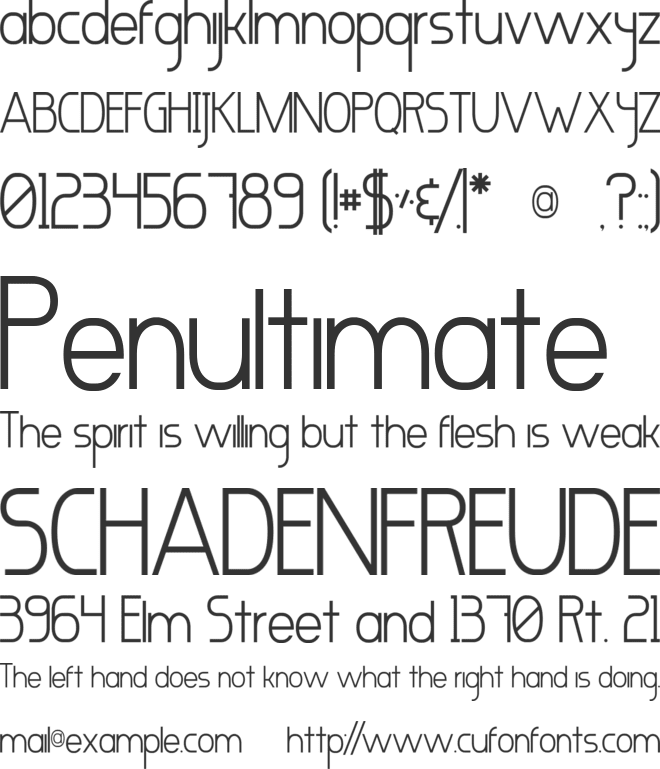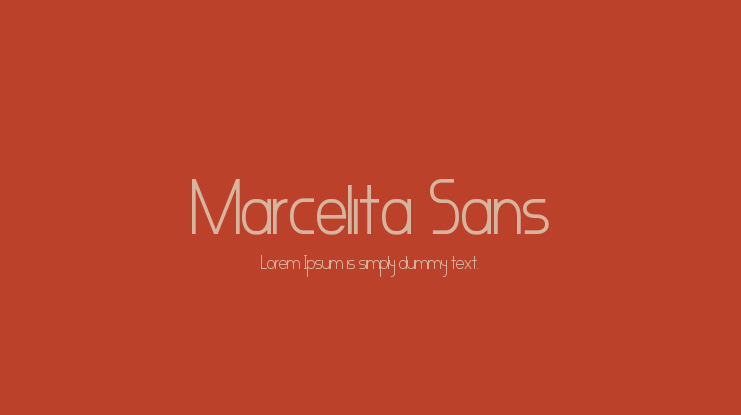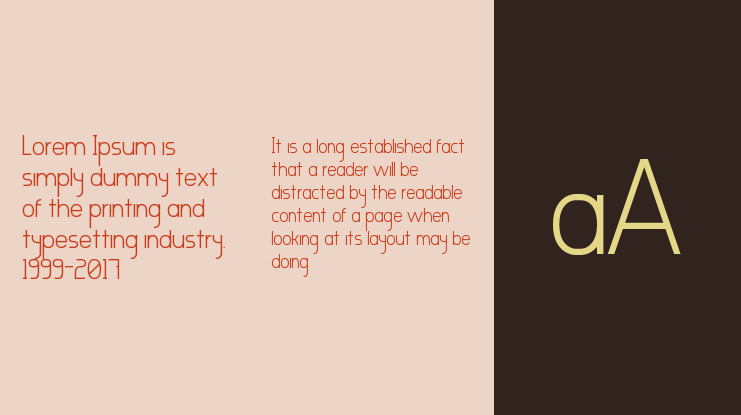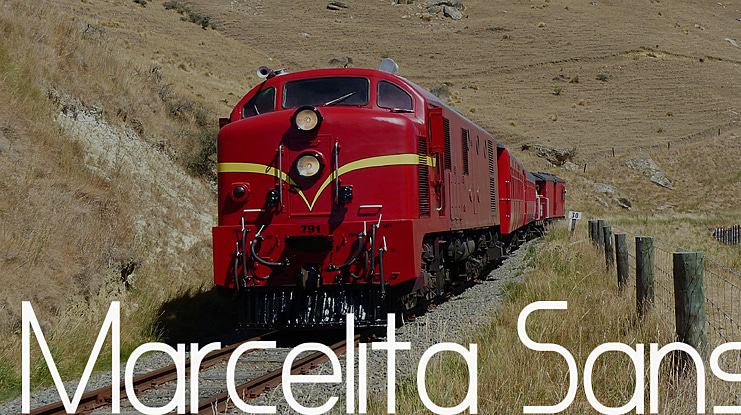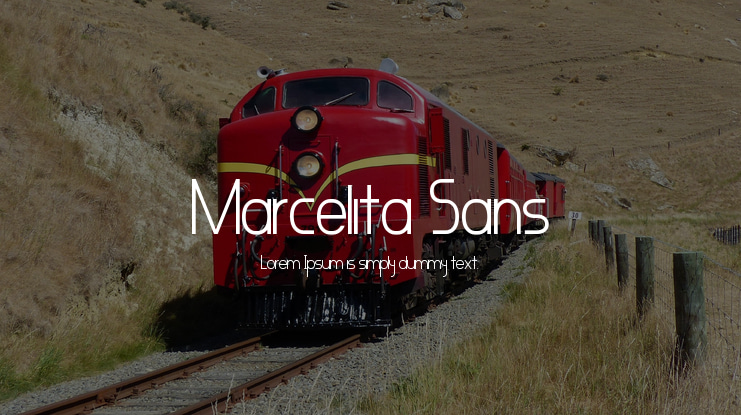
Marcelita Sans Font
A font inspired by my lovely wife and the signage that I see living in Central America. This font is intended for simple logo type or ad copy. This font includes spanish characters.